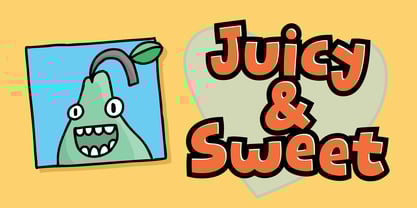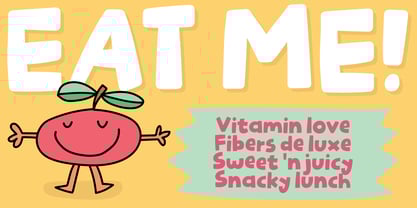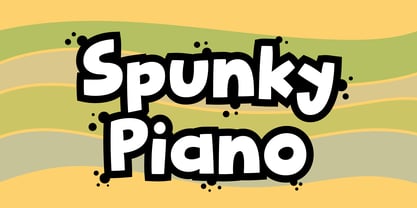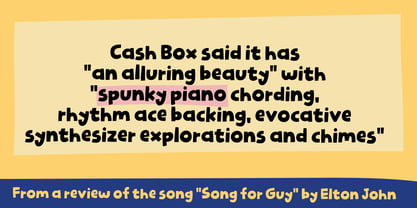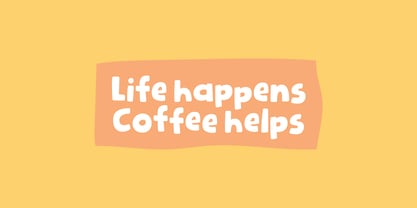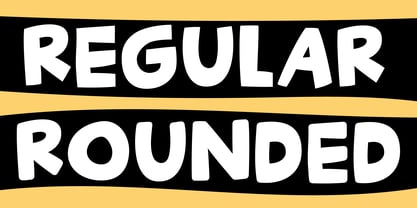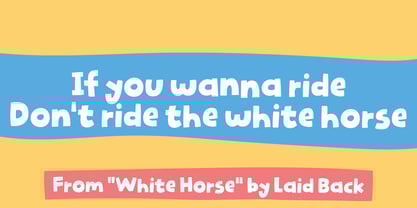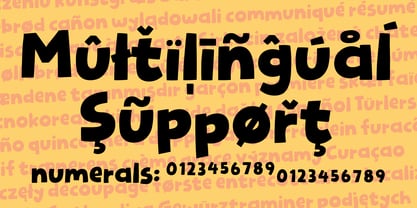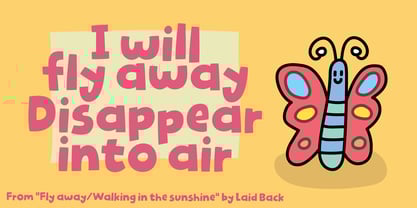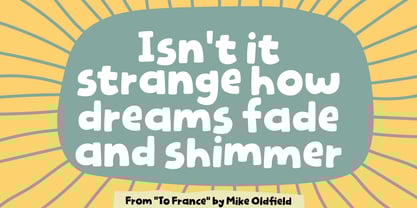
Spunky Piano
The Spunky Piano Font Family was designed by Jakob Fischer and published by PizzaDude.dk. Spunky Piano contains 4 styles and family package options. More about this family
You really can't tell that Spunky Piano was originally handdrawn, because I have cleaned up every single letter digitally - creating a powerful and expressive comic font - but still full of bold, playful and legible look!
With its dynamic curves and energetic shapes, Spunky Piano is suitable for things like kids posters, stickers, comic books. speed bubbles and different kinds of products (typically for kids, but anything that needs a fresh and casual look!)